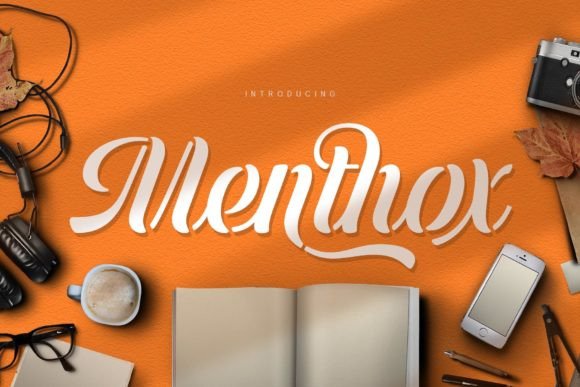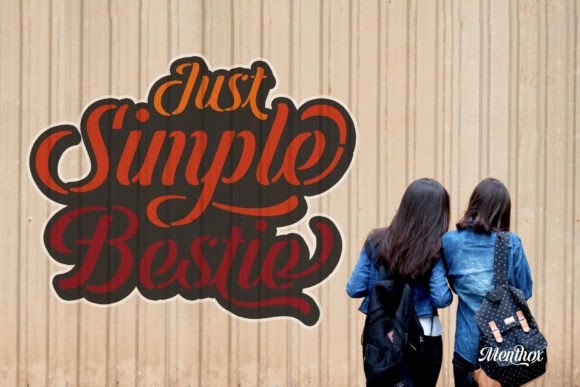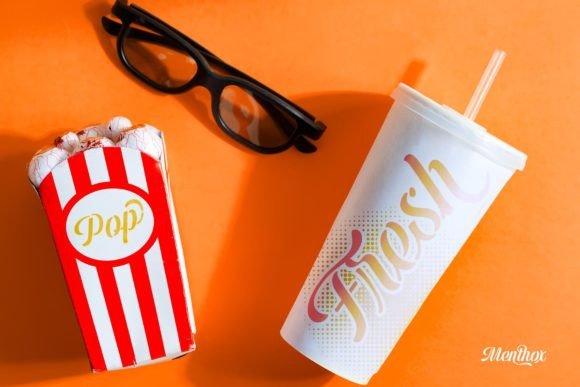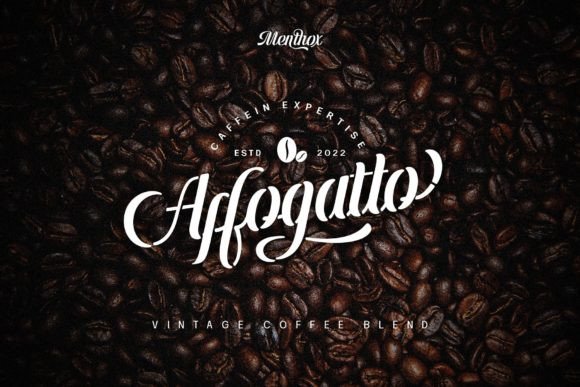
Menthox Font: Unique Stencil Script for Retro Design & Branding!
About the Menthox Font
Add a touch of class to your work with the Menthox Font, a truly exceptional typeface. The Menthox font is designed with a script font concept that has a decorative stencil style. Strong characters with stencil styles make Menthox fonts look different and unique from other script fonts.
A script typeface like “Menthox” is very easy to apply to any design, especially those with dynamic, relaxed, and retro fashion concepts, besides that this font is very easy to use in both design and non-design programs because all glyphs in the Menthox font are supported by Unicode. (PUA).
Menthox excels in display applications such as logos, short headlines, and packaging where its decorative nature shines. Its strong, individual characters are ideal for creating a memorable brand mark or eye-catching product label. However, its decorative style and relatively high x-height make it less suitable for body text or extended reading. Avoid using it for long paragraphs or user interfaces where legibility is paramount.
Pairing Menthox effectively requires considering its bold personality. A clean sans-serif like Montserrat or a geometric sans-serif such as Futura would provide a strong, modern counterpoint. For a softer contrast, consider a neutral serif like Lora, which will balance Menthox’s decorative flair without overwhelming it.
The overall personality of Menthox is bold and retro, with a touch of playful energy. It is best suited for brands and projects seeking a vintage-inspired yet contemporary aesthetic, suggesting a balance of classic style and modern dynamism.